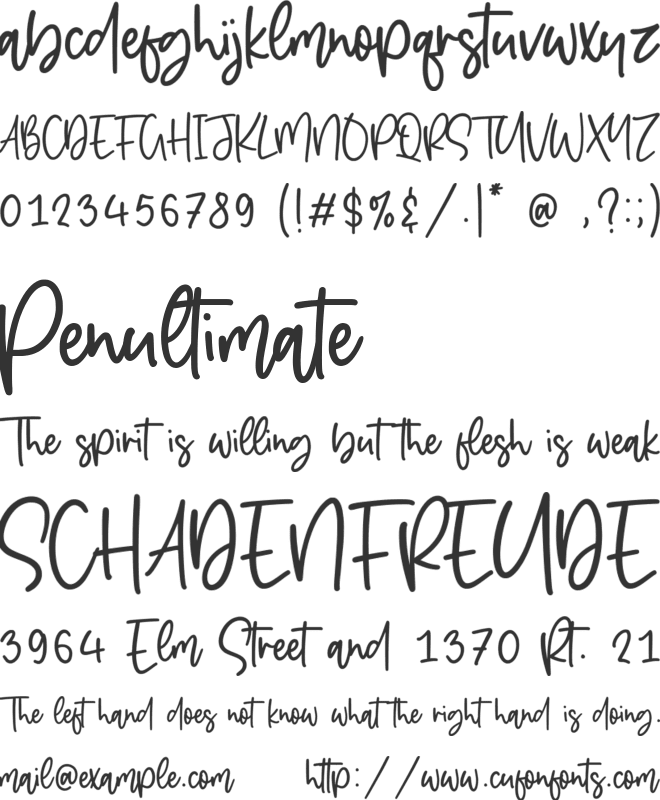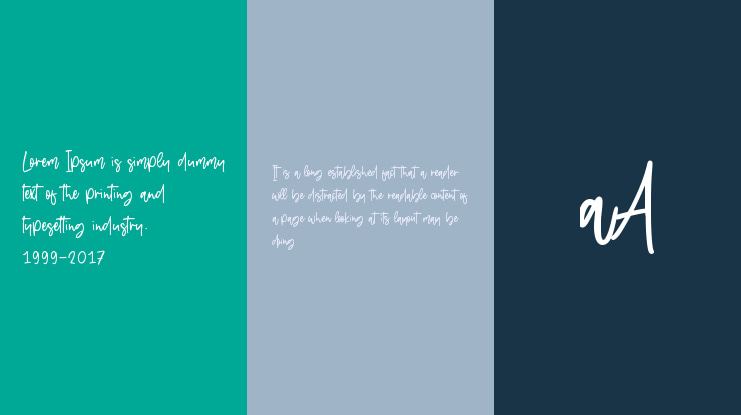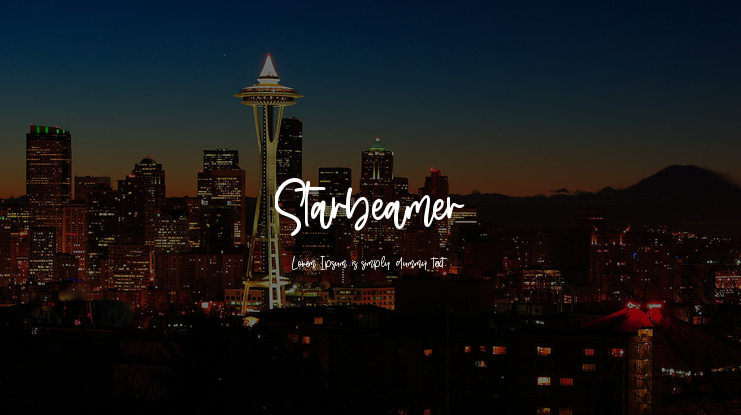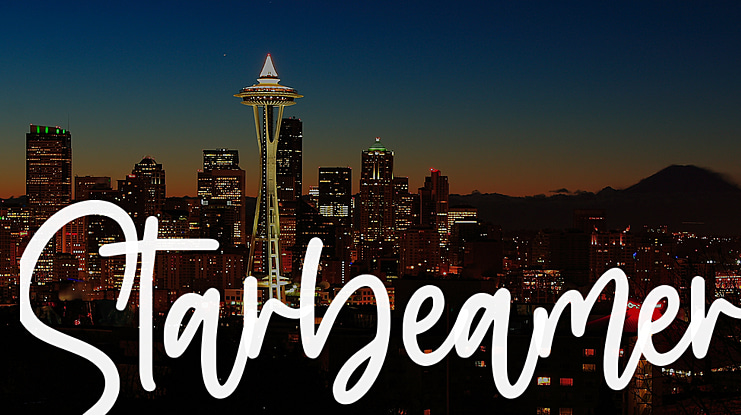
Starbeamer Font
Proudly Present, Starbeamer Font.
Starbeamer is a Modern Handwritten font.
Starbeamer is perfect for product packaging, branding project, megazine, social media, wedding, or just used to express words above the background.